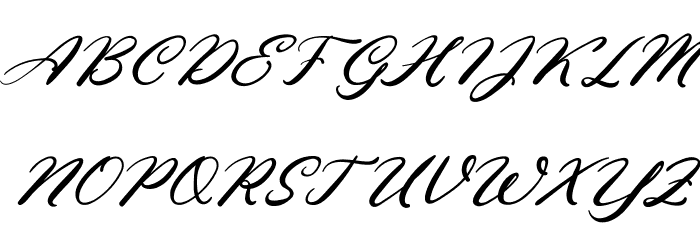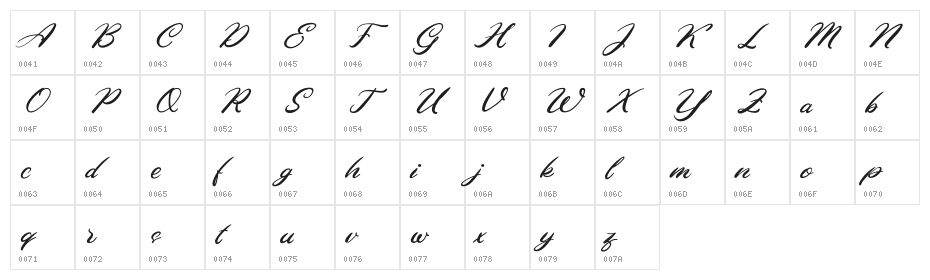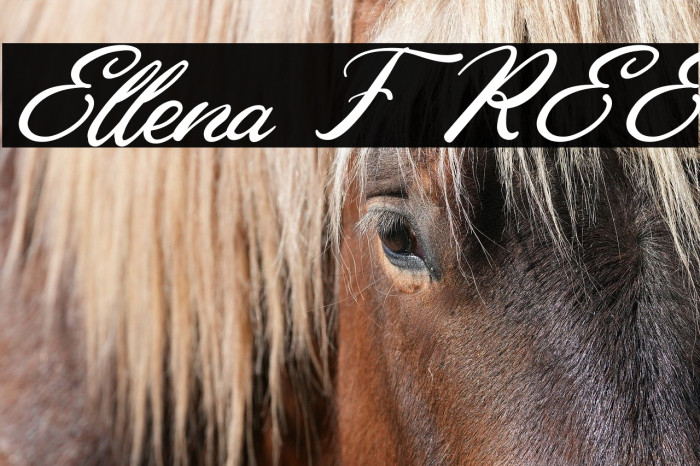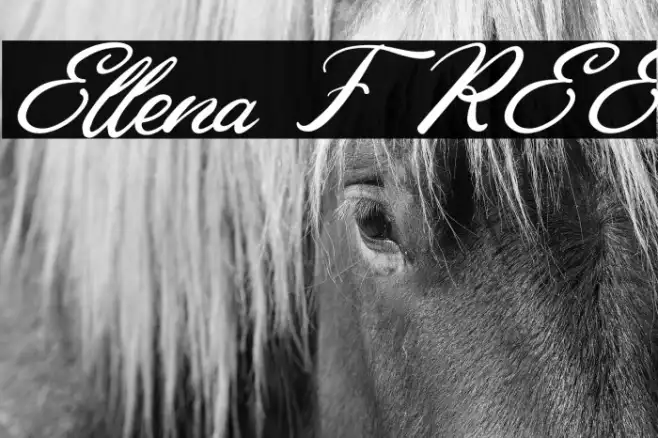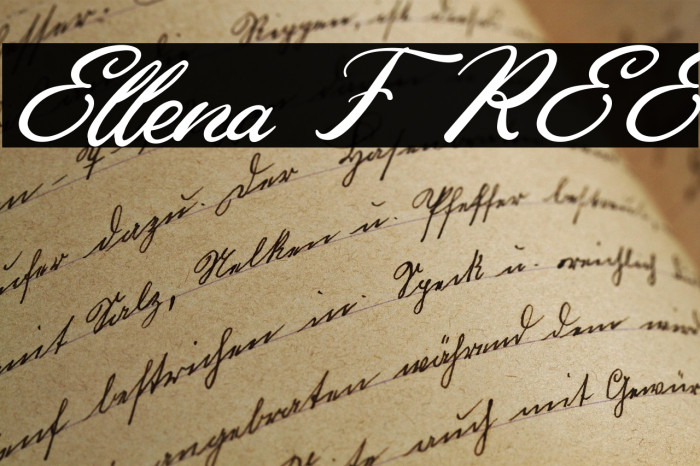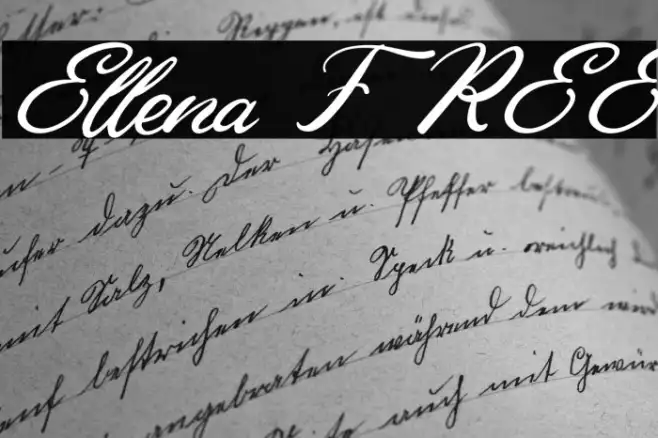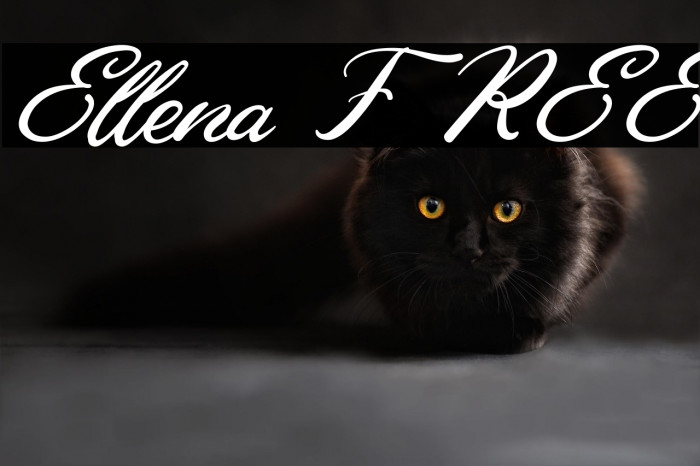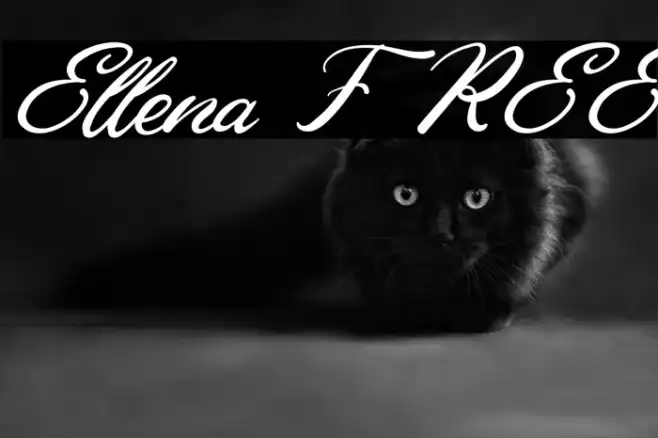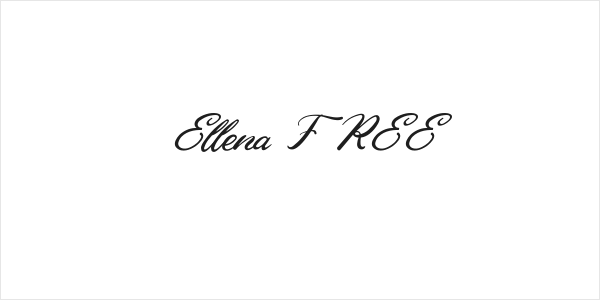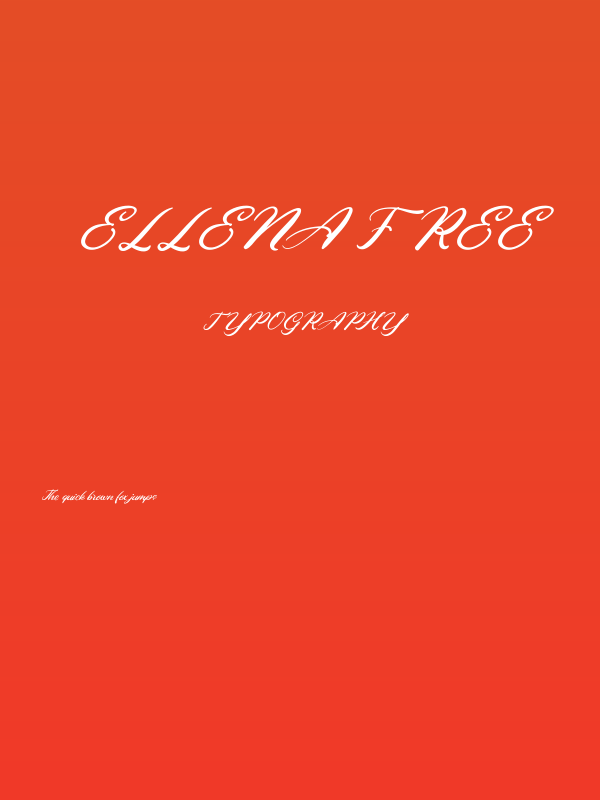
Ellena FREE Font
Ellena FREE Description
This elegant script font features flowing, cursive letters with a sophisticated and graceful appearance. The characters are connected, creating a seamless and fluid look that is both classic and stylish. The uppercase letters are slightly larger and more ornate, while the lowercase letters maintain a consistent flow, enhancing readability. The font's strokes are smooth and rounded, with a medium contrast between thick and thin lines, adding to its refined aesthetic. This font exudes a sense of elegance and charm, making it suitable for formal and decorative purposes.
| Use Case | Invitations, Branding, Decorative text |
| Proposed Projects | Ideal for wedding invitations, elegant branding, greeting cards, and decorative signage. |